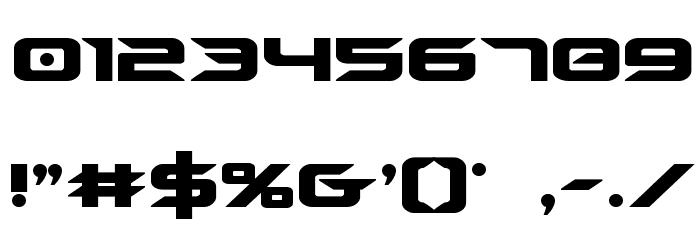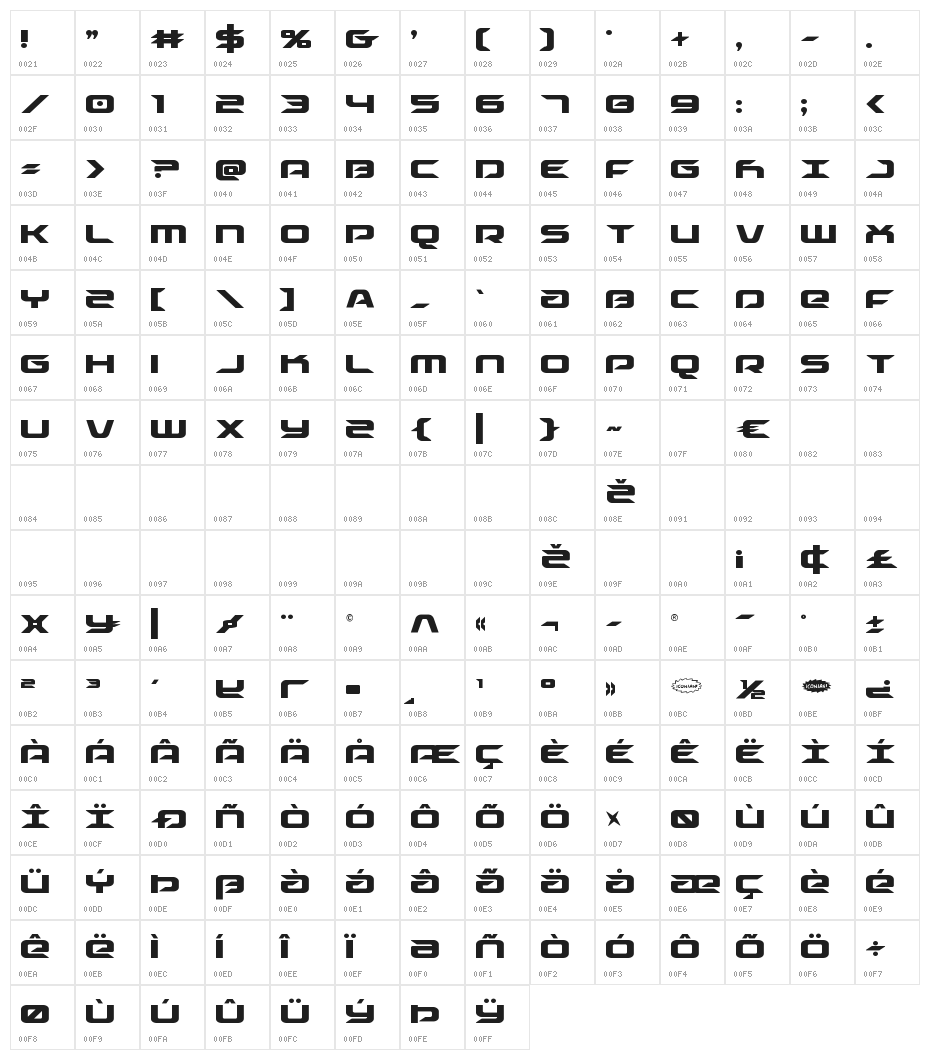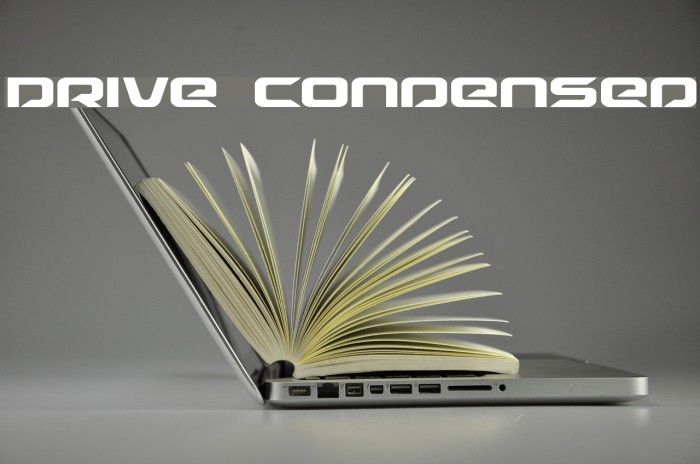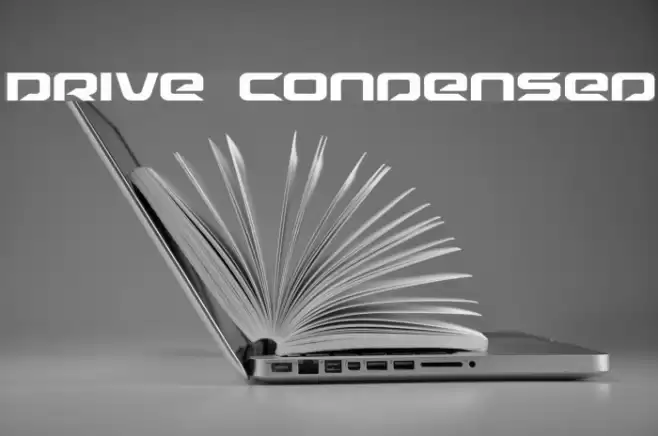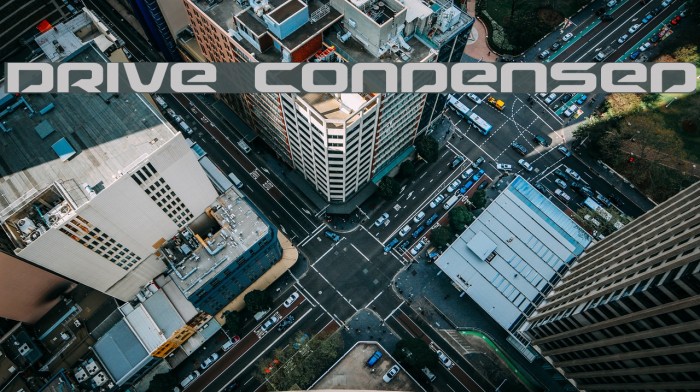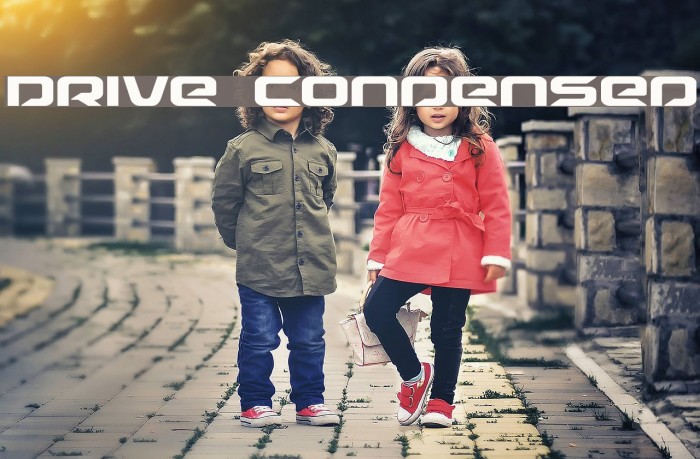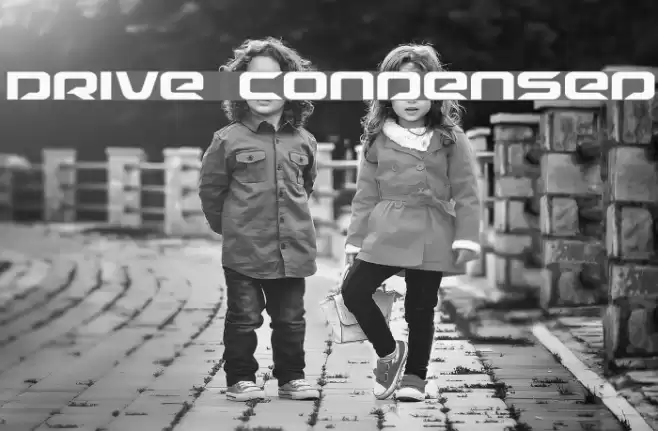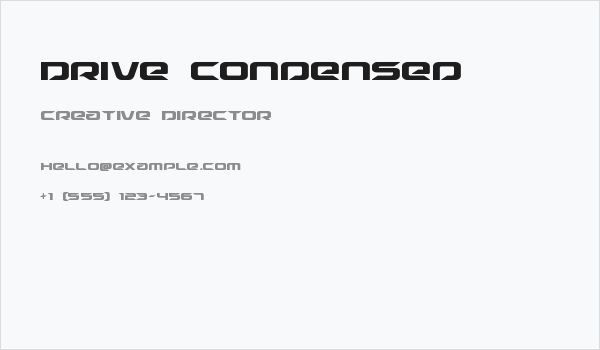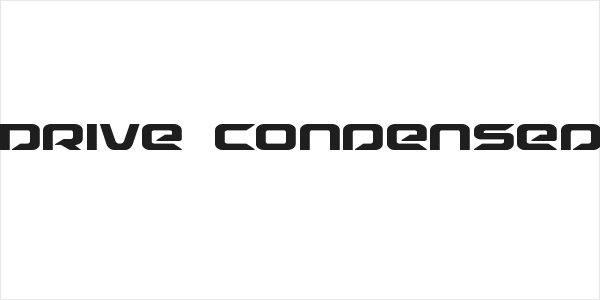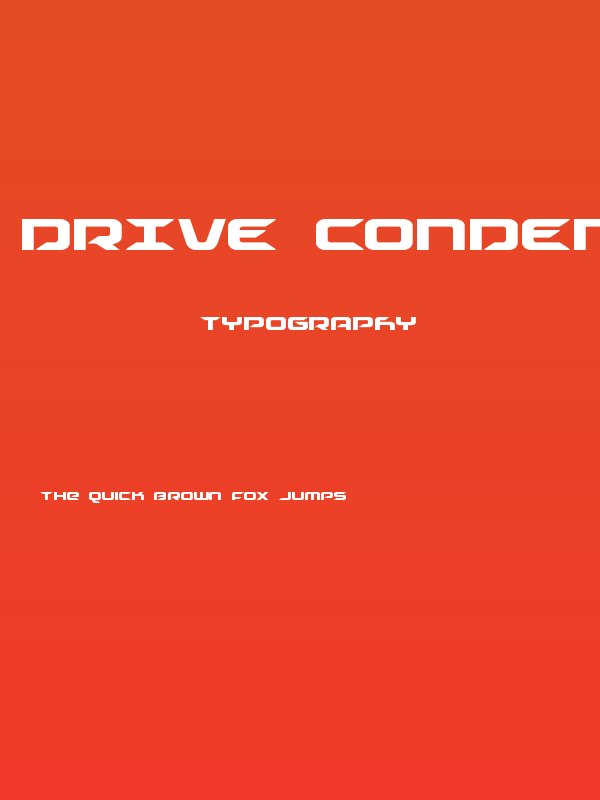
Drive Condensed Font
Drive Condensed Description
This font features a futuristic and geometric design with sharp angles and clean lines. The characters are bold and condensed, giving a strong and impactful appearance. The uppercase and lowercase letters maintain a consistent style, with unique cutouts and angular shapes that add a dynamic and modern feel. The numerals and special characters follow the same design principles, ensuring a cohesive look across all elements. This font is ideal for projects that require a bold and contemporary aesthetic.
| Proposed Projects | Ideal for technology branding, sci-fi movie posters, video game titles, and modern advertising campaigns. |